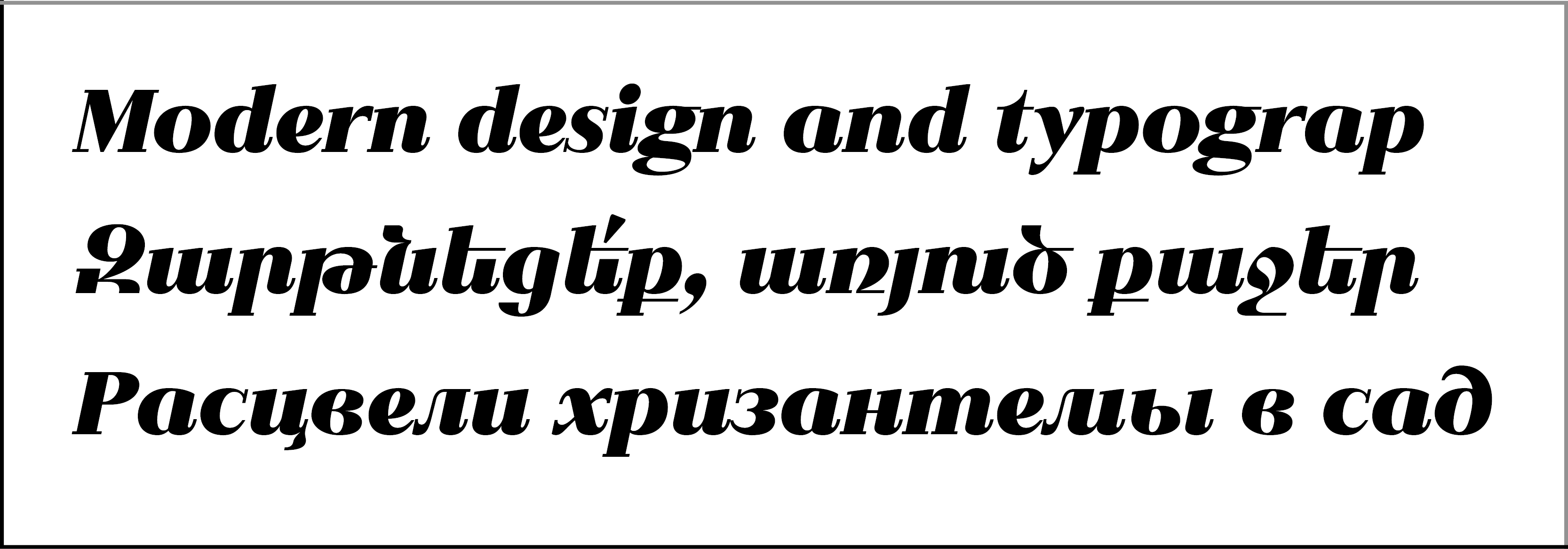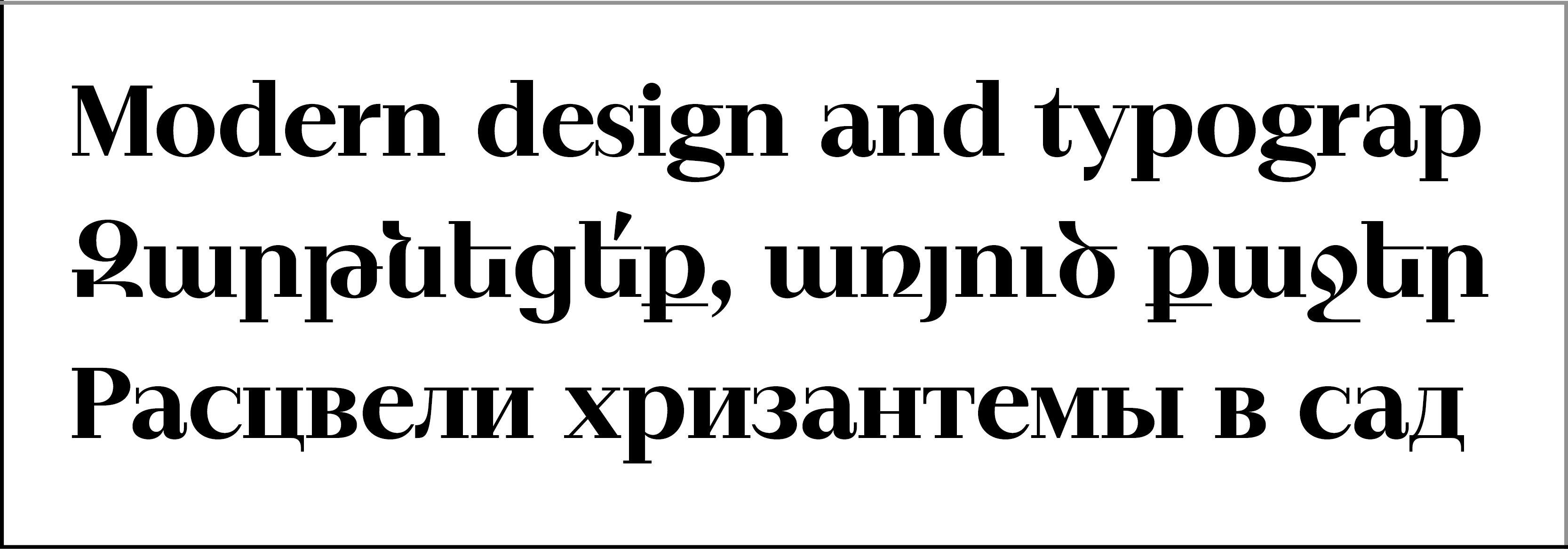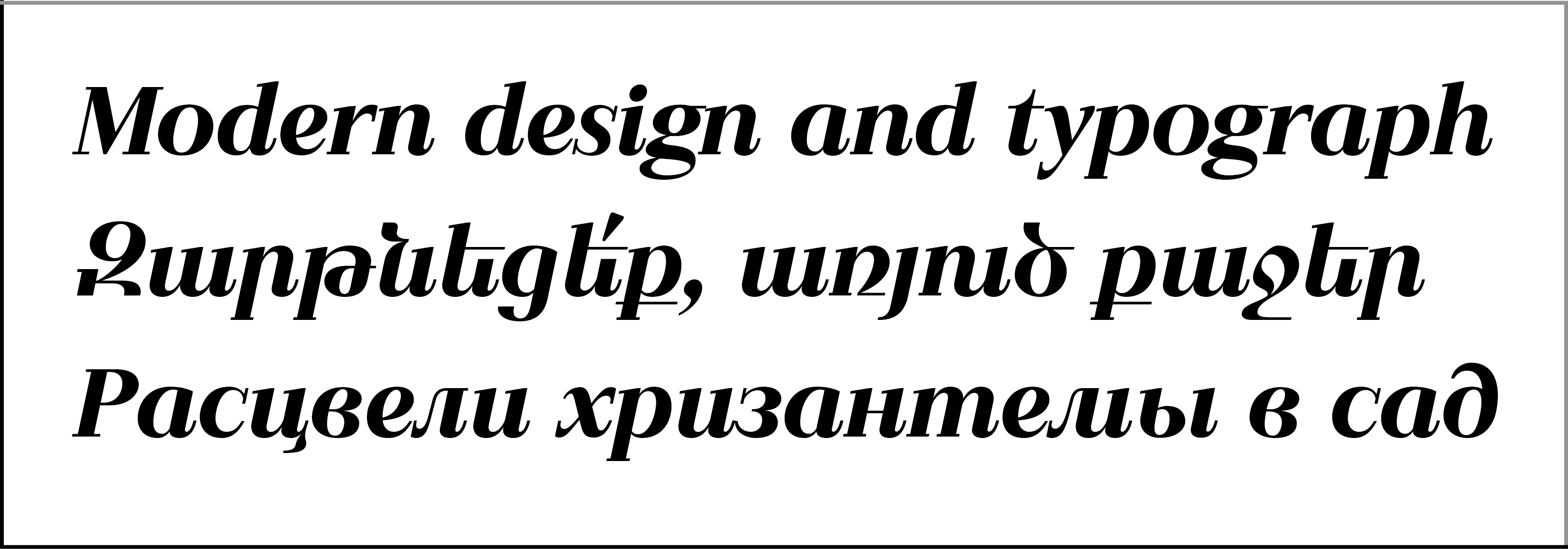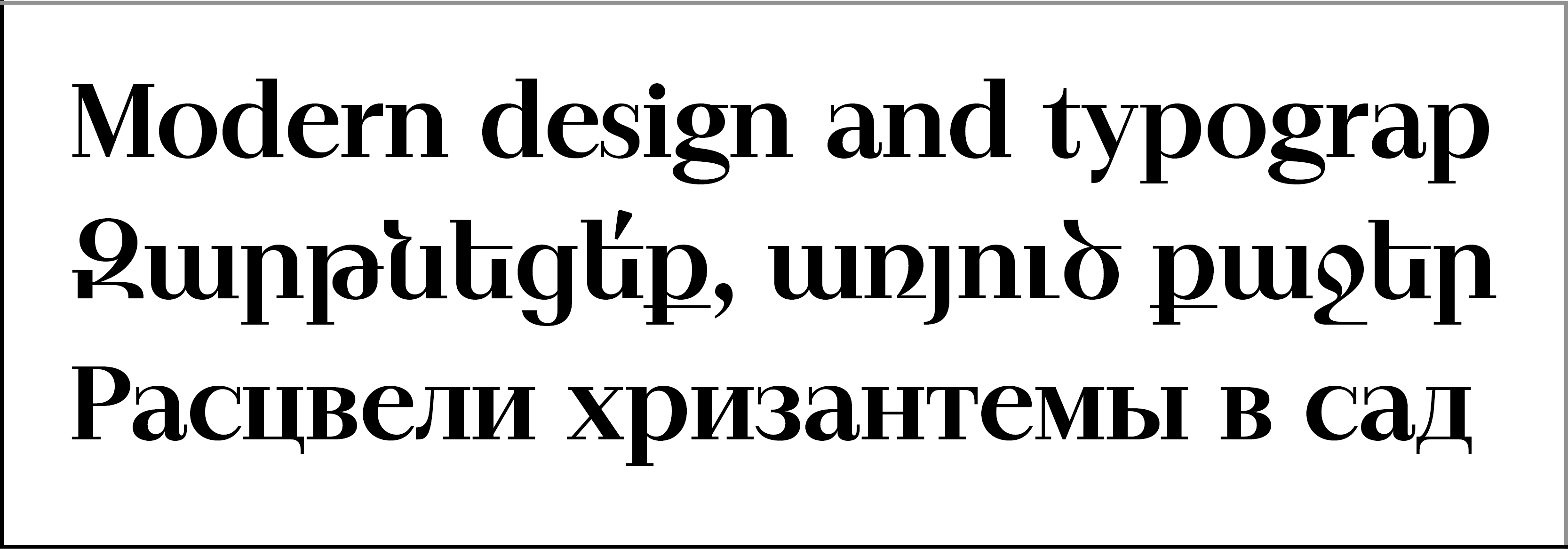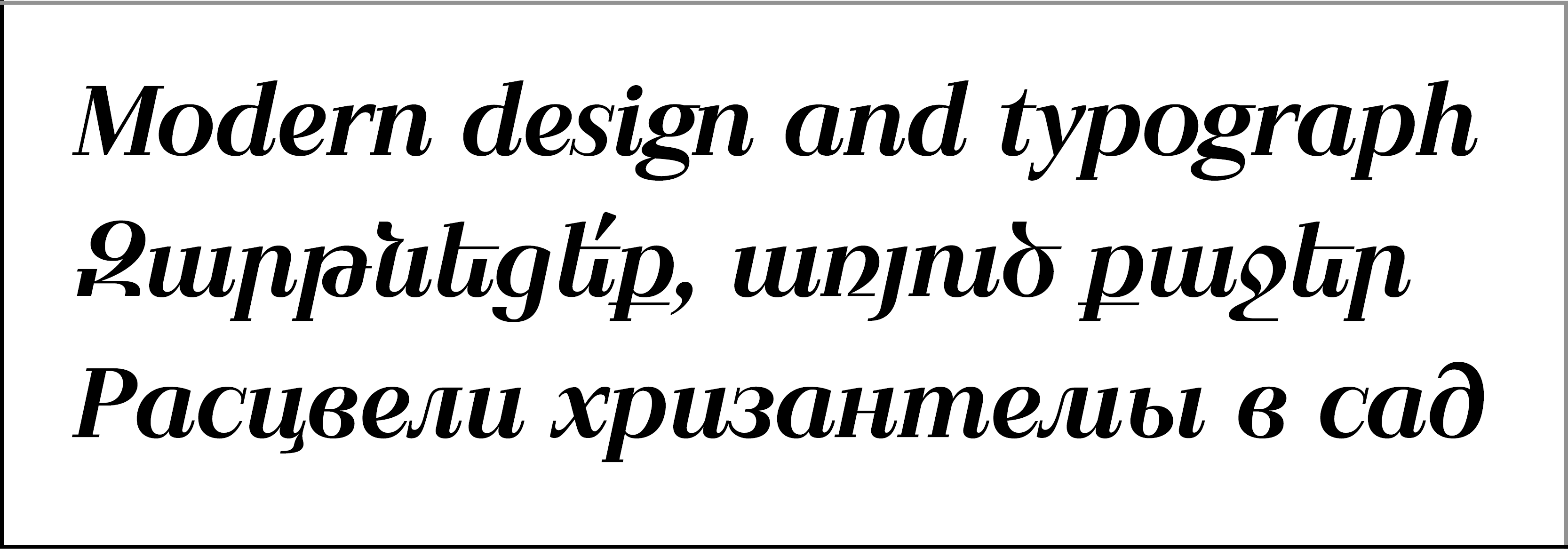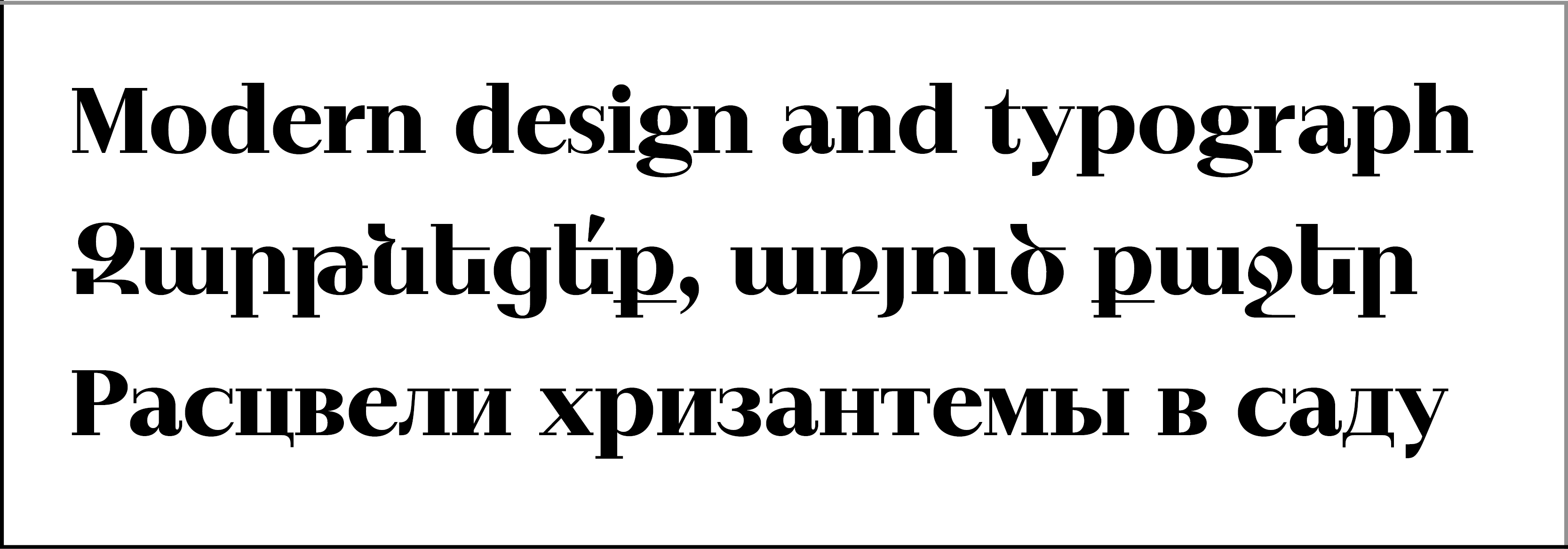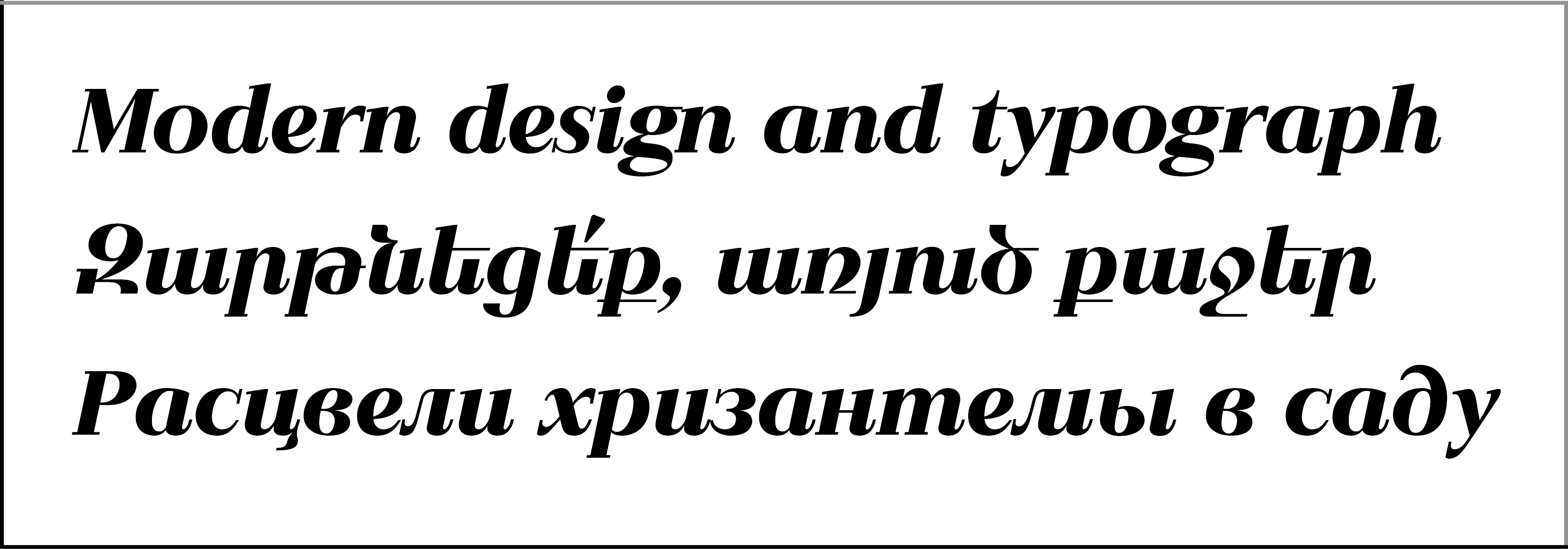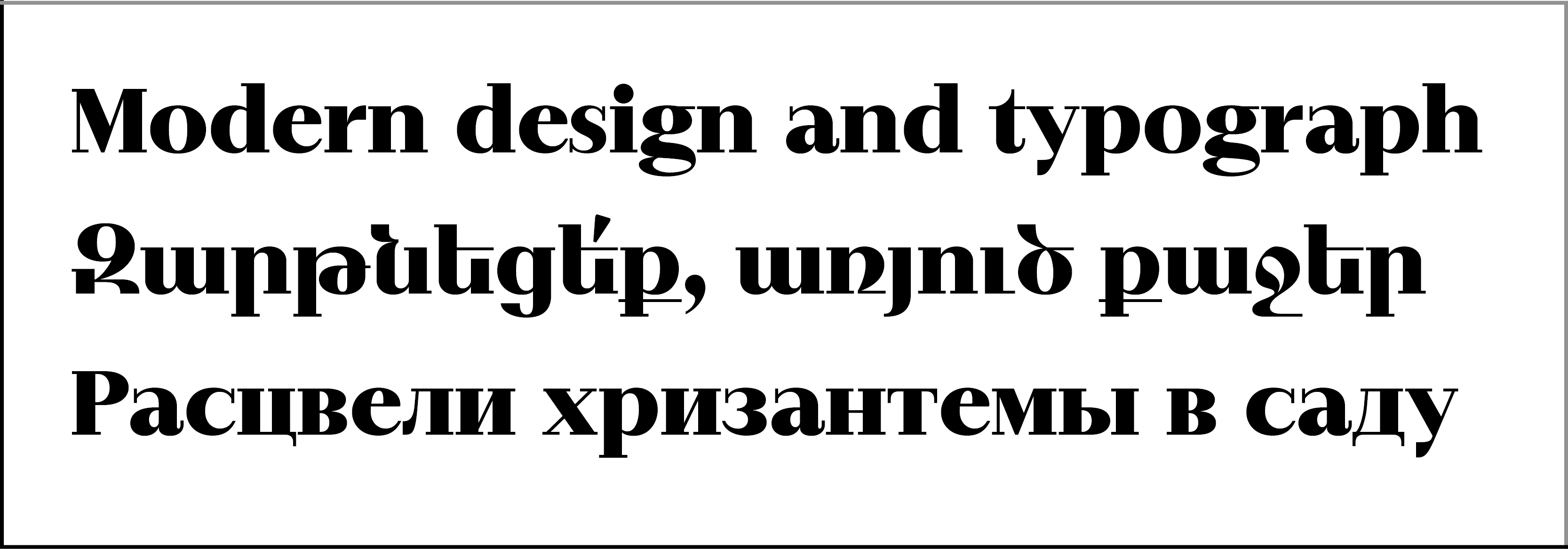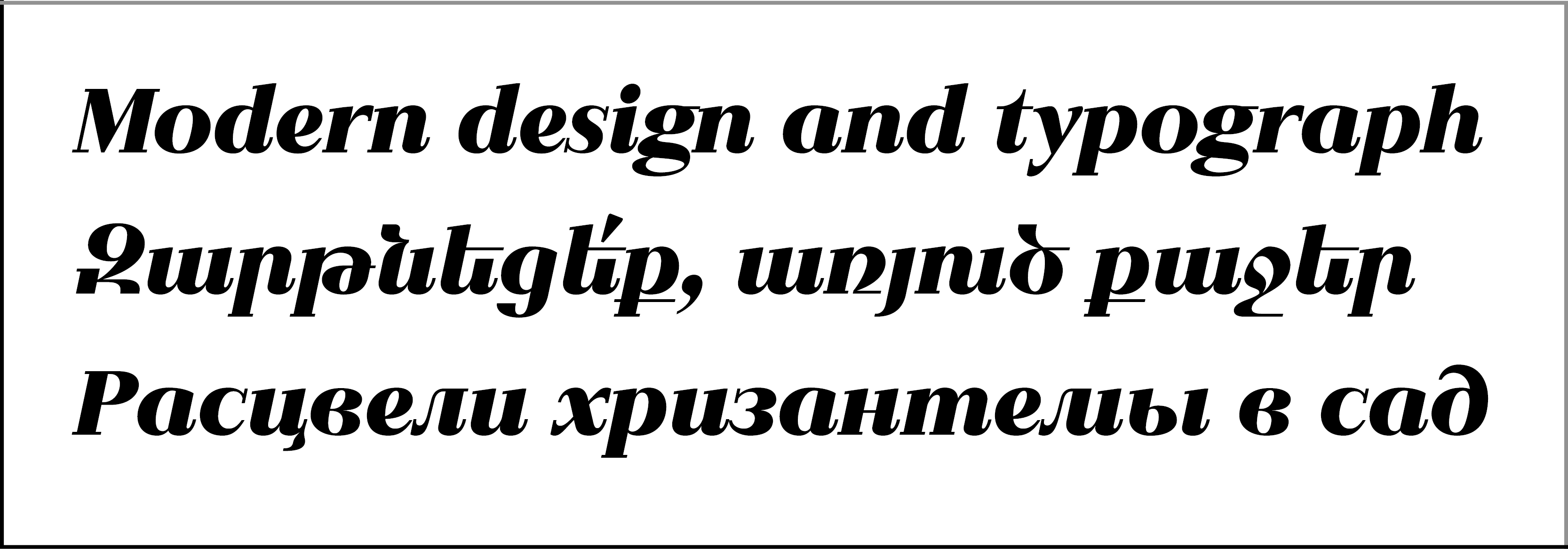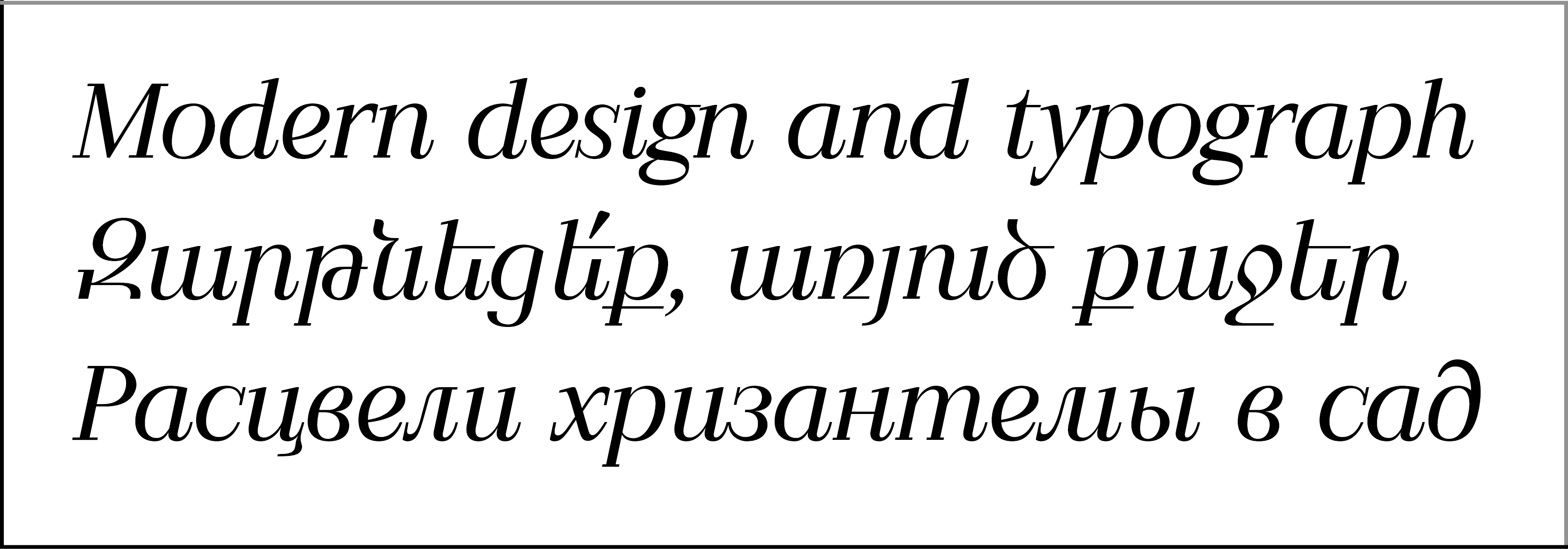
Edik Ghabuzyan, Serif typefaces
GHEA Aram
Design date: 2018
The font family includes Armenian, Latin and Cyrillic alphabet systems.
The font can be used as a text font. It has 19 weights: ExtraLight, ExtraLight Italic, Light, Light Italic, Regular, Italic, Medium, Medium Italic, SemiBold, SemiBold Italic, DemiBold, DemiBold Italic, Bold, Bold Italic, ExtraBold, ExtraBold Italic, Heavy, Heavy Italic, Black Italic.